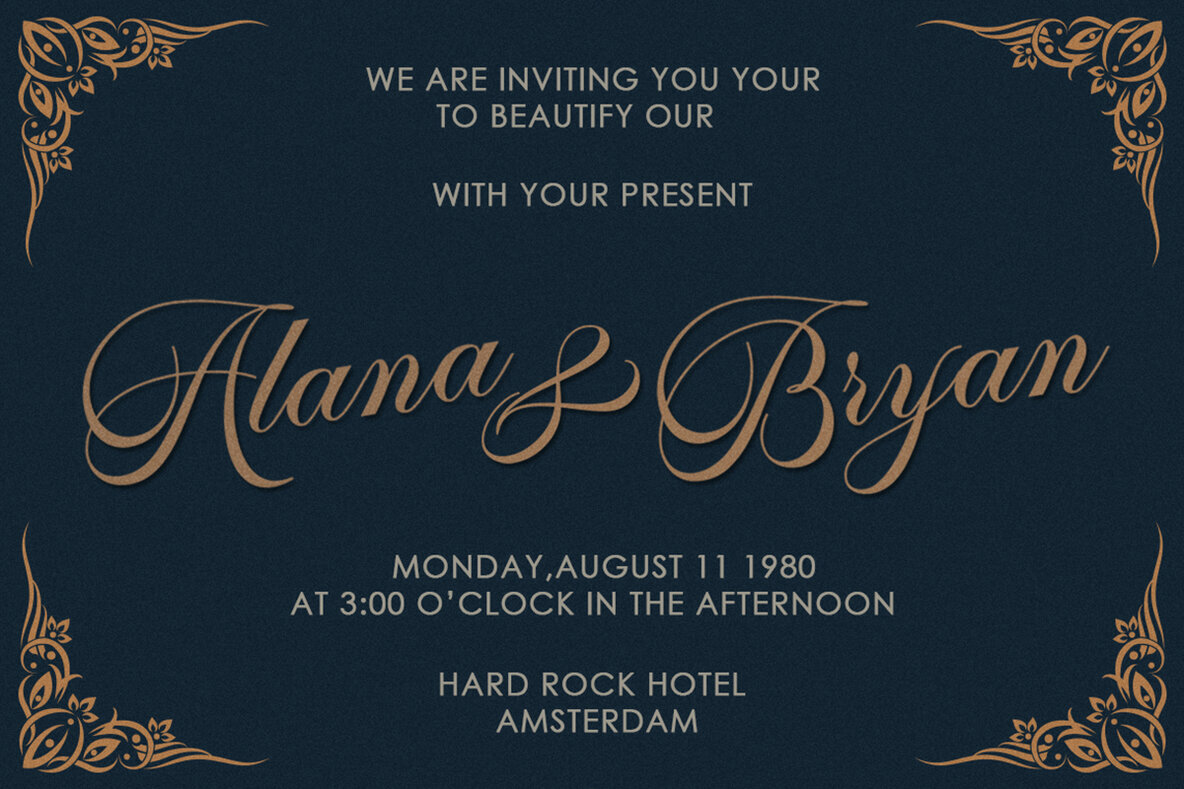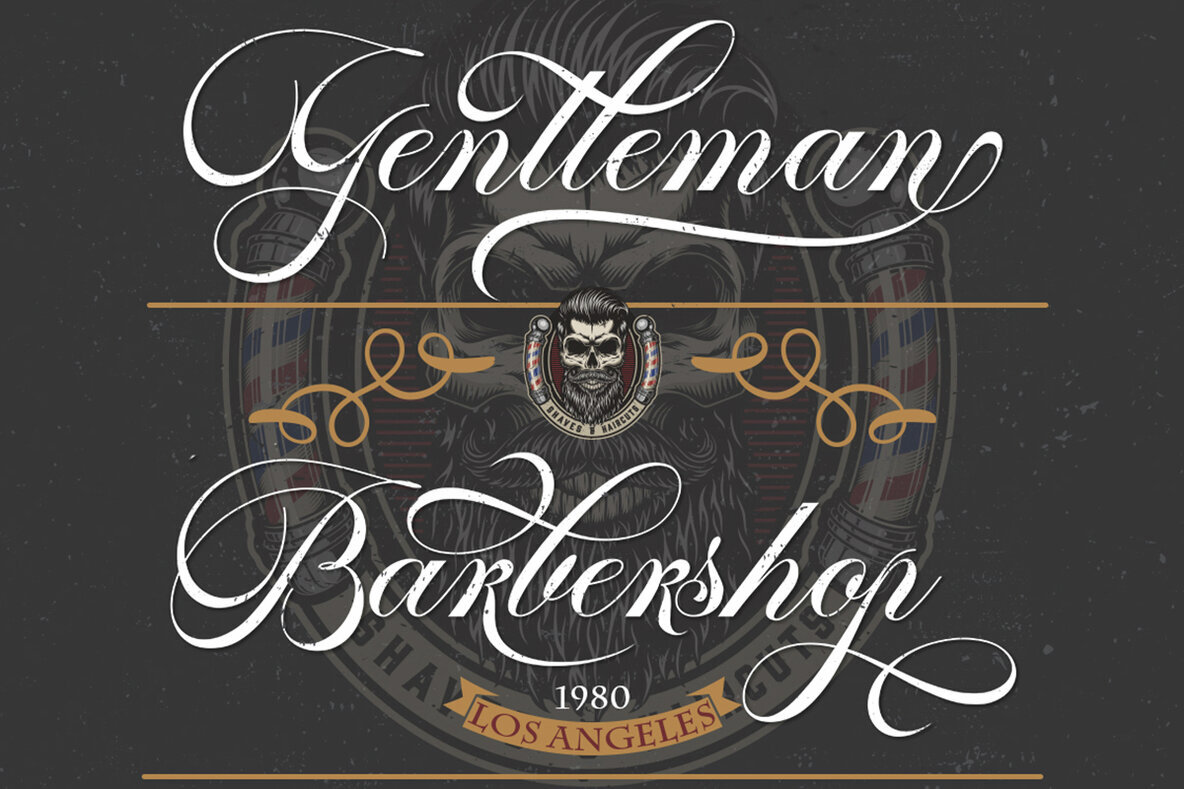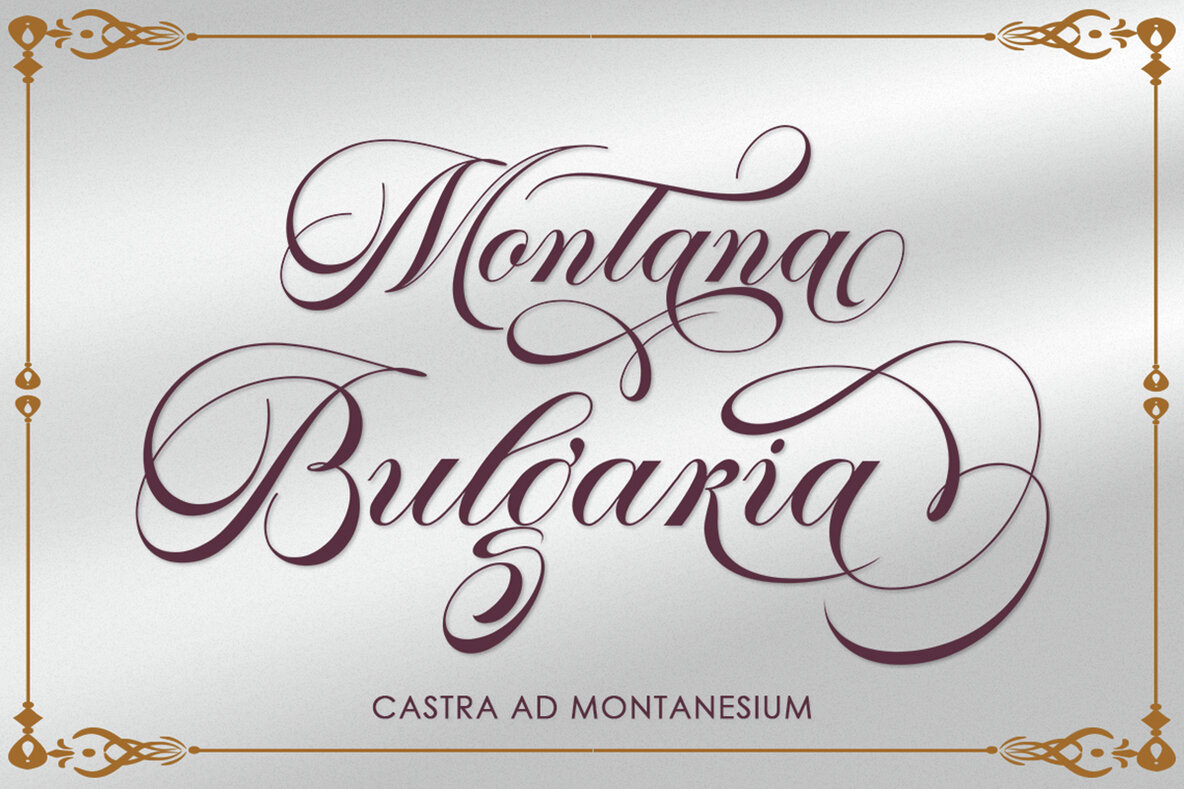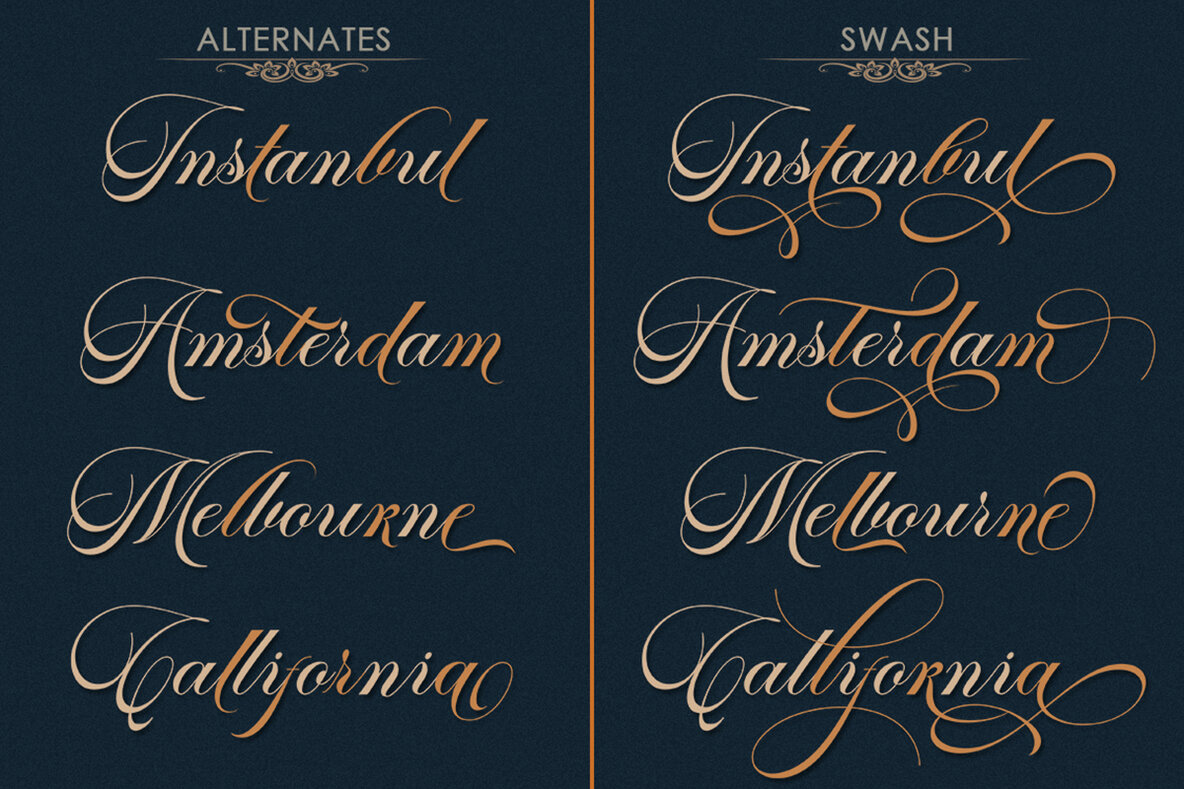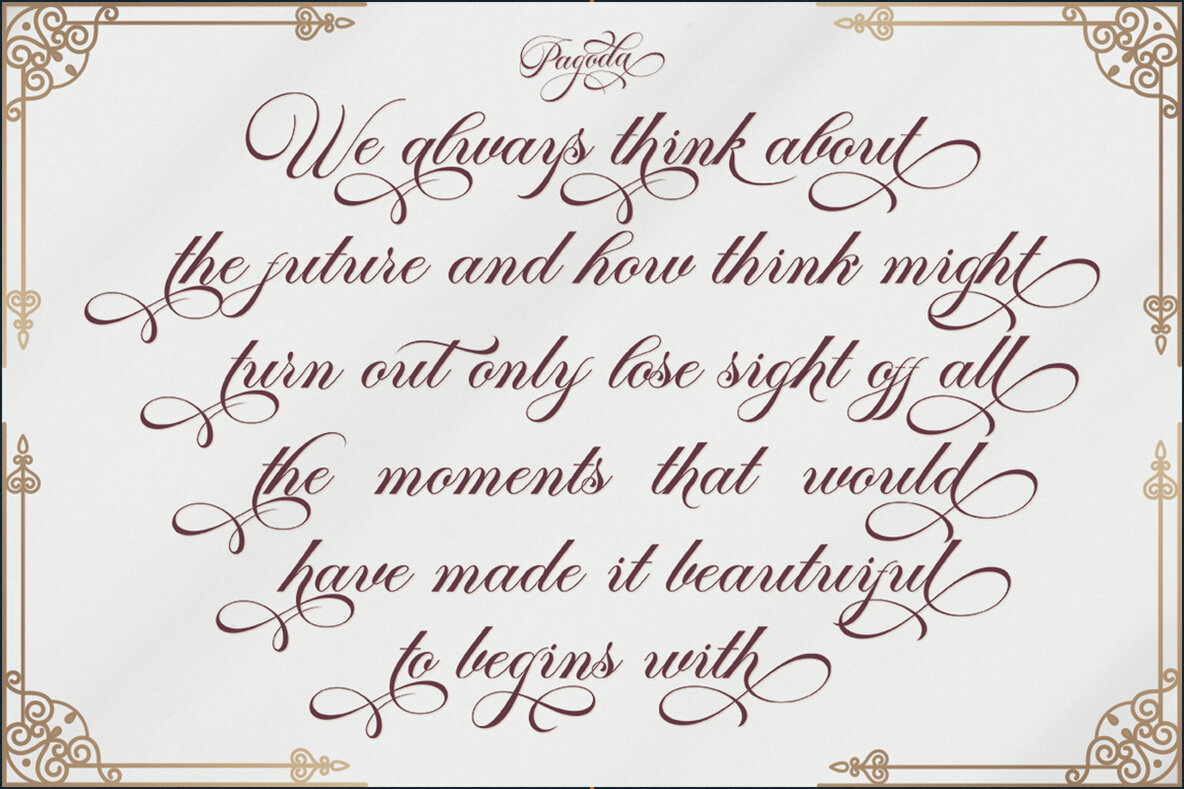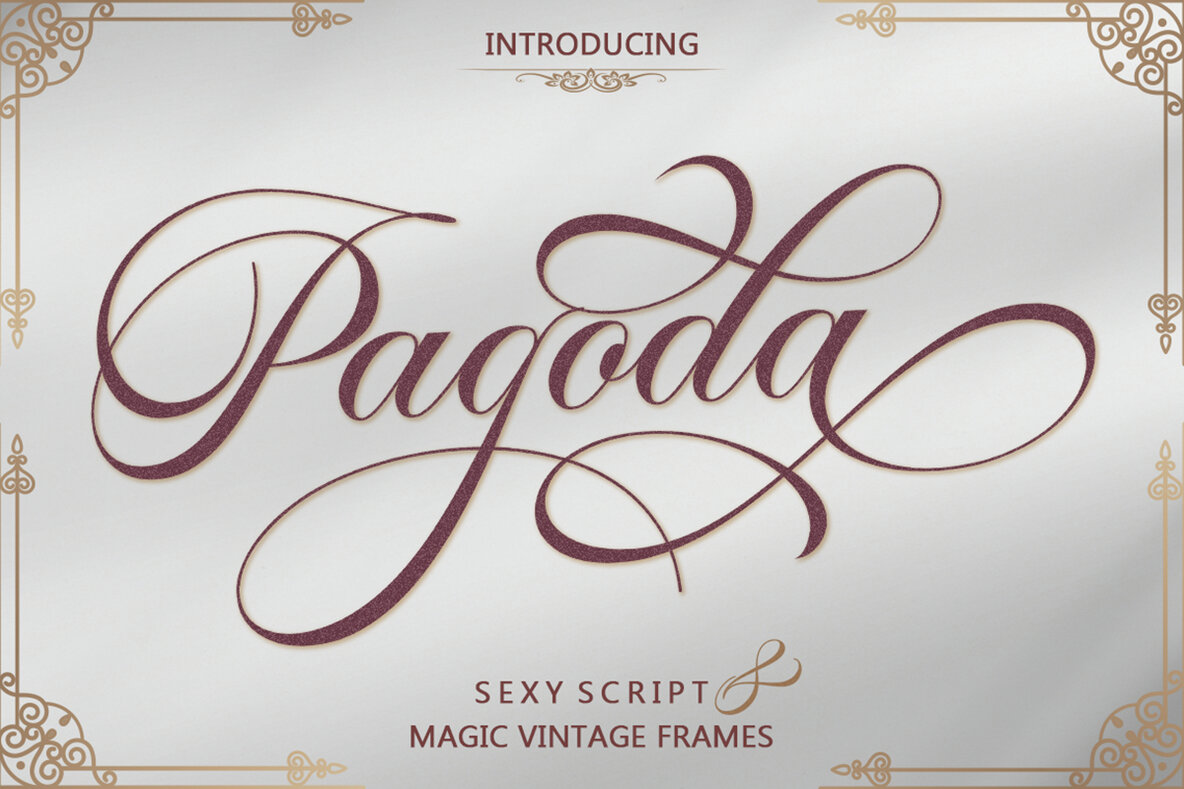
Pagoda Font
Pagoda
Pagoda Script is a vintage calligraphy font blending copperplate and hand-lettering styles, designed to convey a blend of stylish elegance with a smooth, clean, and feminine appeal. This versatile typeface includes beautiful upper and lower case letters, each with alternative styles, making it ideal for a variety of design projects. The font is available in both Clean and Aged versions, offering options for different stylistic preferences. Its readability and glamorous finish make it perfect for logos, wedding invitations, alcohol labels, and romantic cards.
Pagoda Script also supports multiple languages, including English, Danish, Dutch, Estonian, Finnish, French, German, Hungarian, Icelandic, Italian, Norwegian, Polish, Portuguese, Spanish, and Swedish, ensuring versatility in international design work. Please note that while this font is recommended for use in Adobe Illustrator or Photoshop, some special features are not supported in Microsoft Word. Consider using this elegant script to add a sophisticated touch to your next creative project.